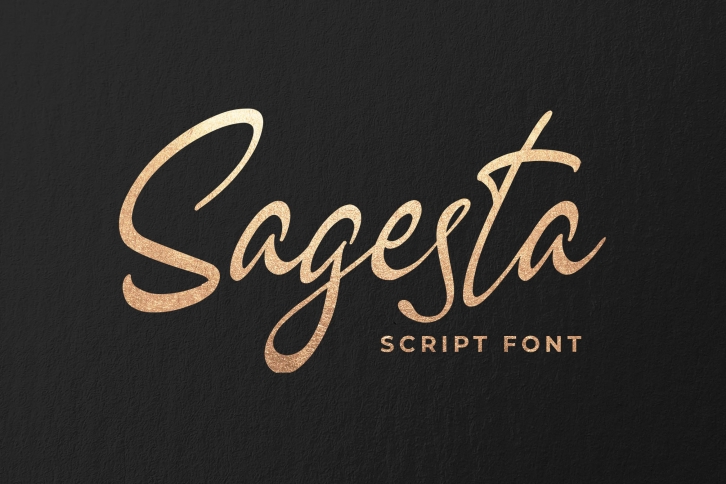
Sagesta is a gorgeous font that was realeased on December 26, 2019. The font can be used in many style contexts and design environments. Perfect for invitations, magazines, websites, logos, and more! It was designed by Blankids and the file size is 20.36 MB. Thanks for checking out this font!